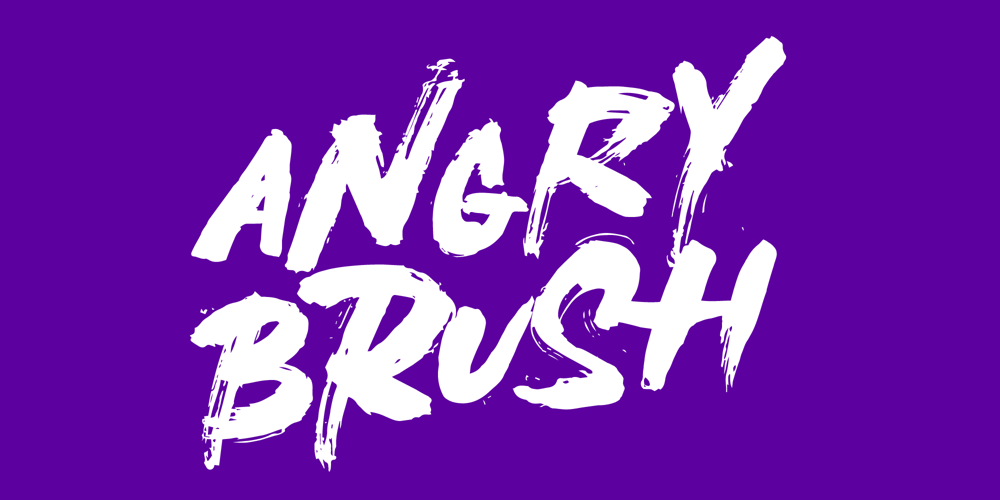
Angry Brush
Angry Brush font
Angry Brush Font Family was designed by Emily Joy Rich and published by Joy Studio. Angry Brush contains 1 styles and family package options. Introducing ANGRY BRUSH – a very bitter display brush font made for all your resentful ramblings. Available only in upper case (shout mode) and with 17 different unique variations of every single character so it always looks fresh, with no duplicated letters in sight. You can either manually choose your preferred character, or let the contextual alternates rotate through each stylistic set whilst you type.